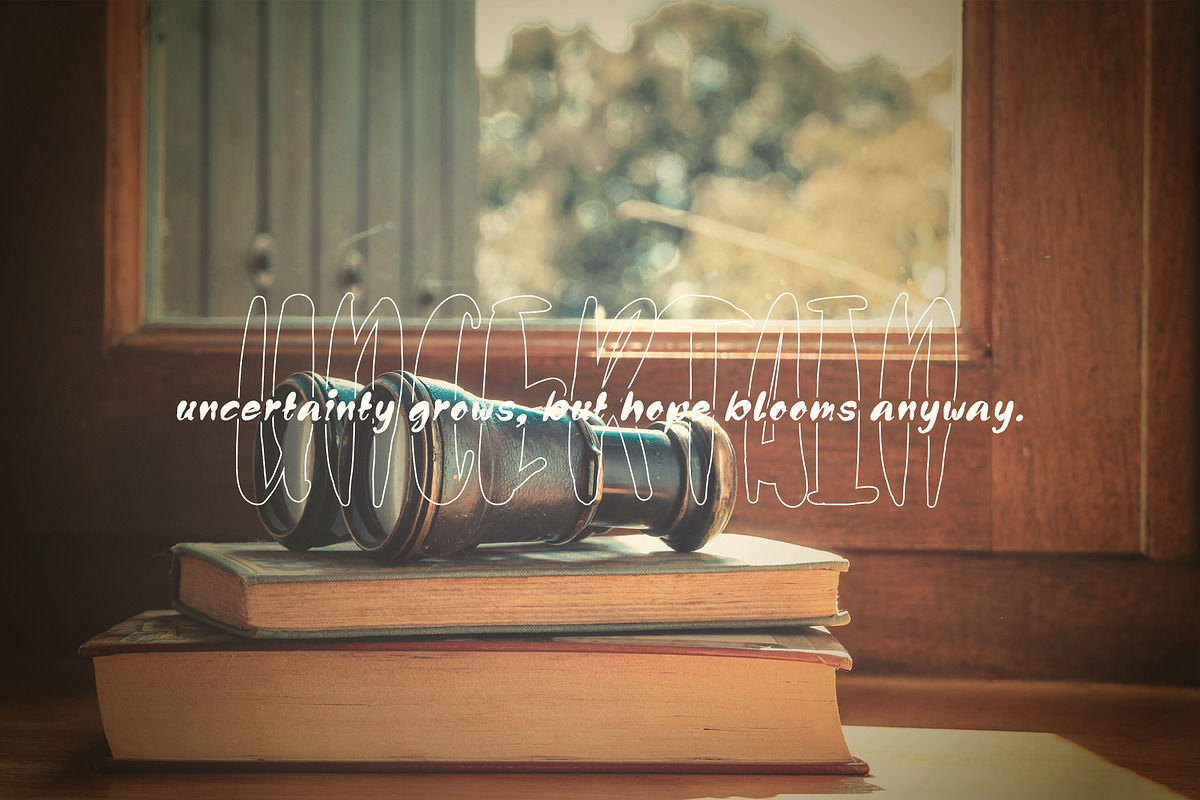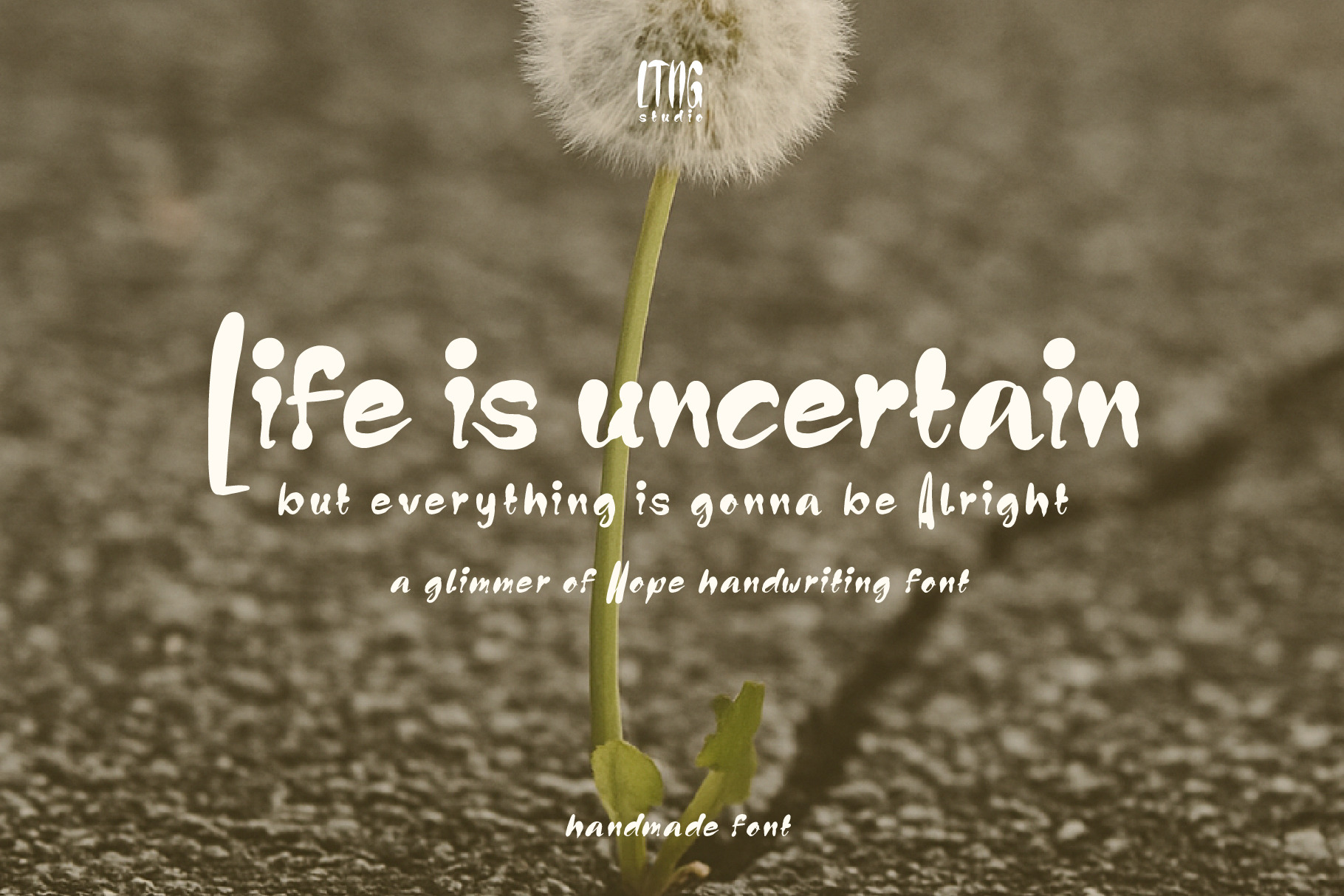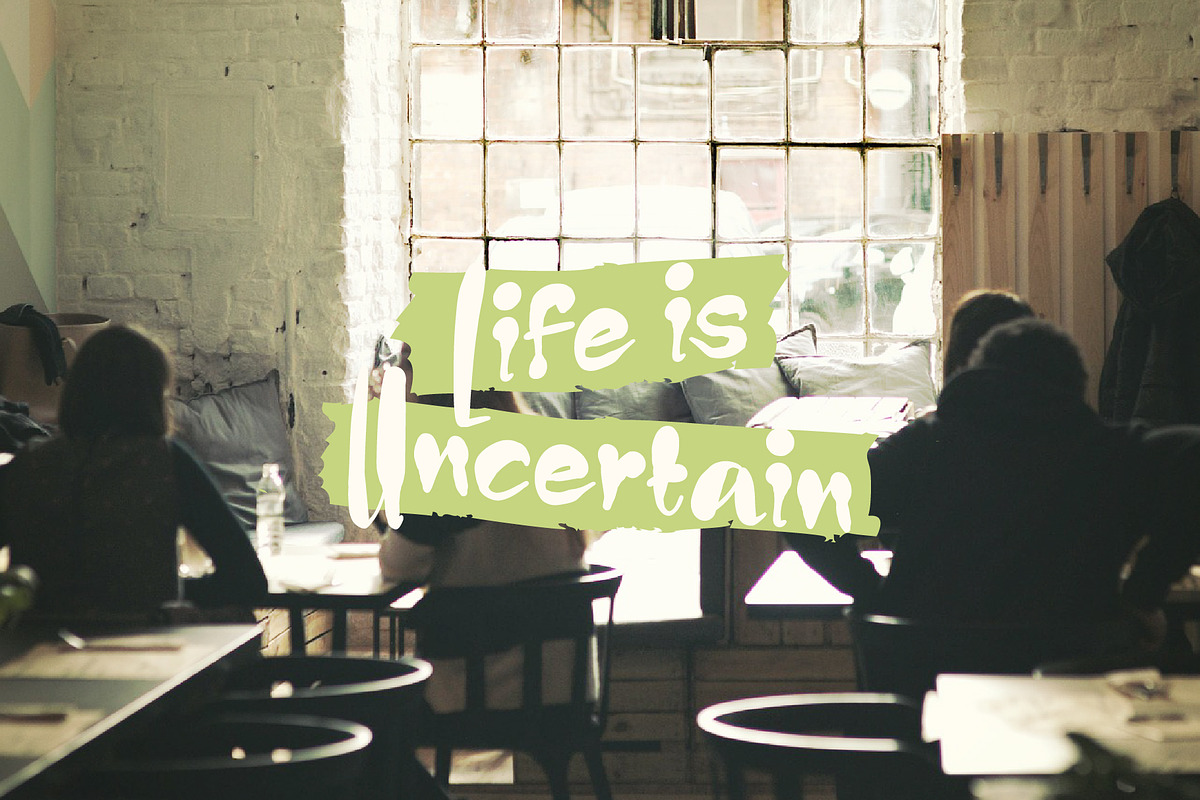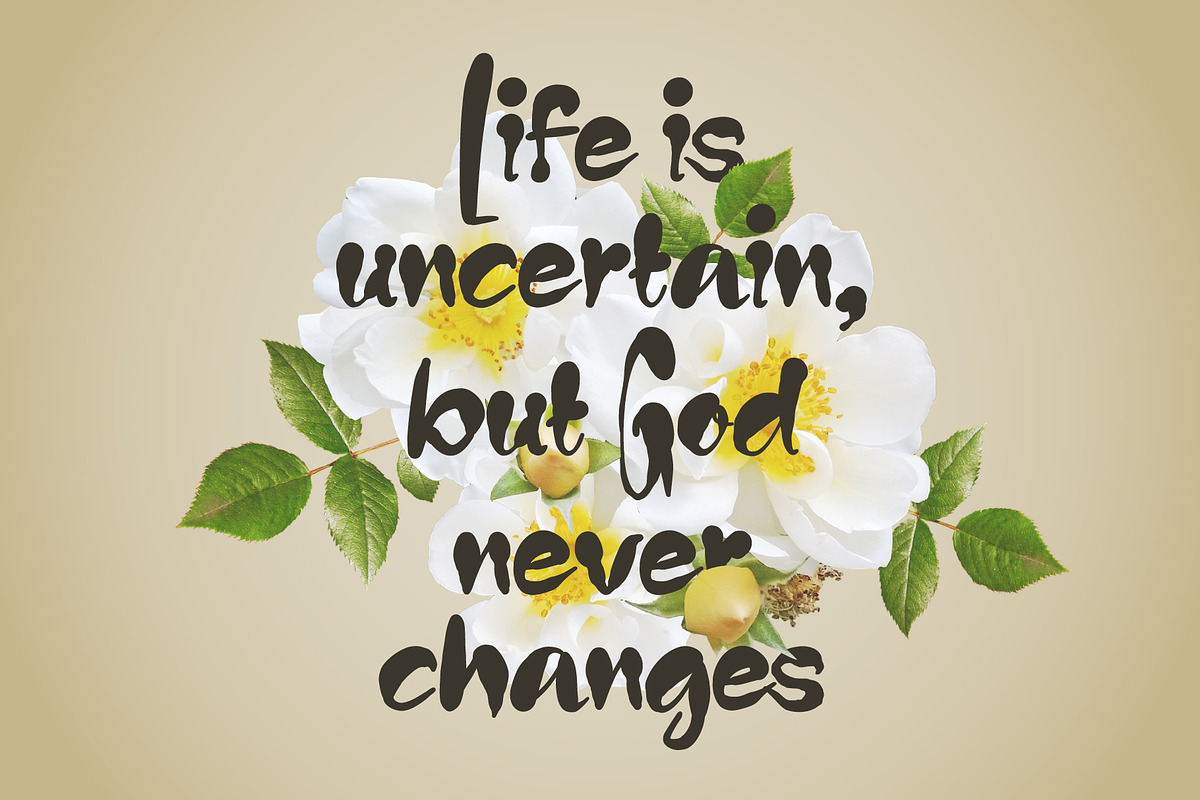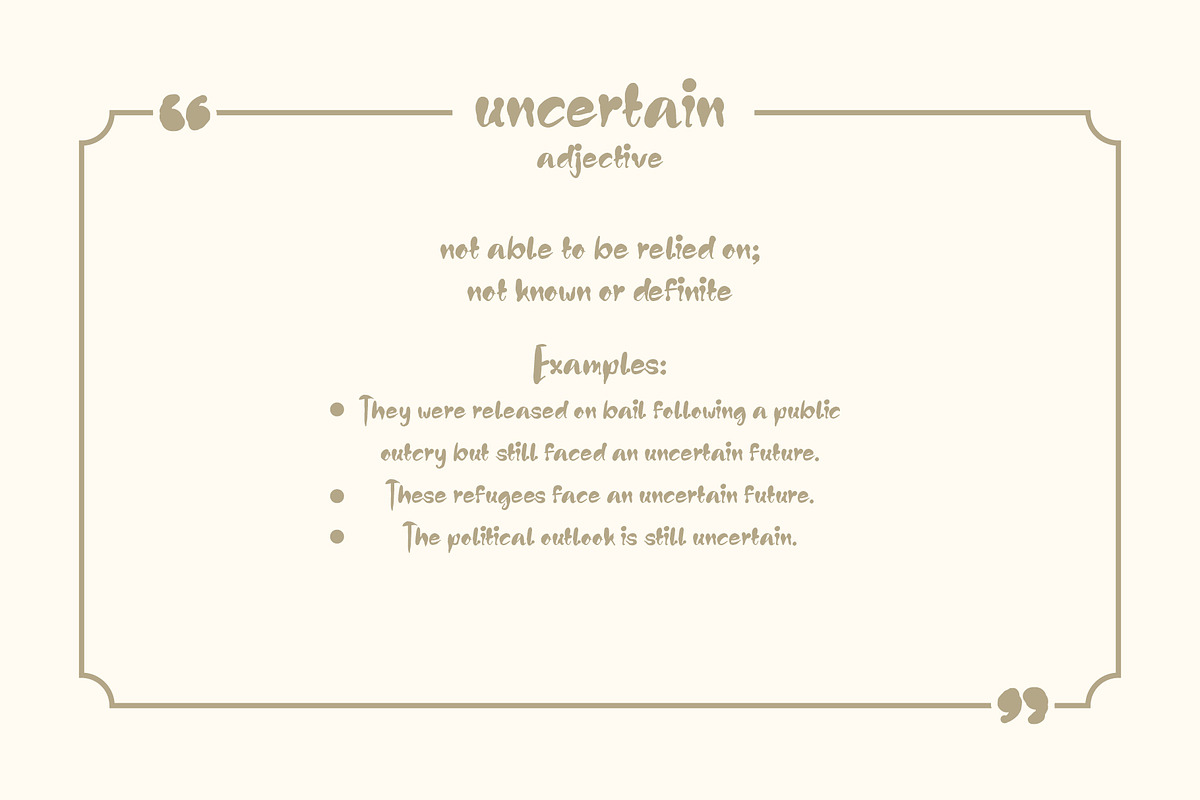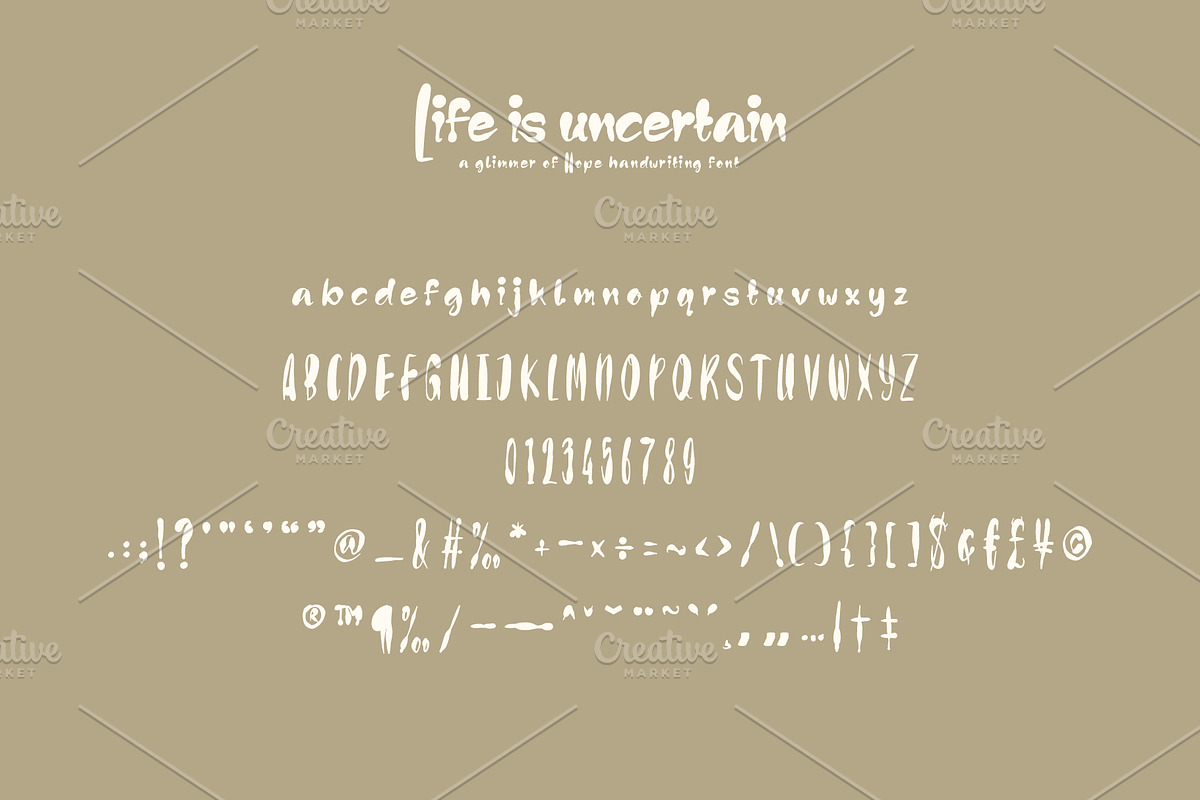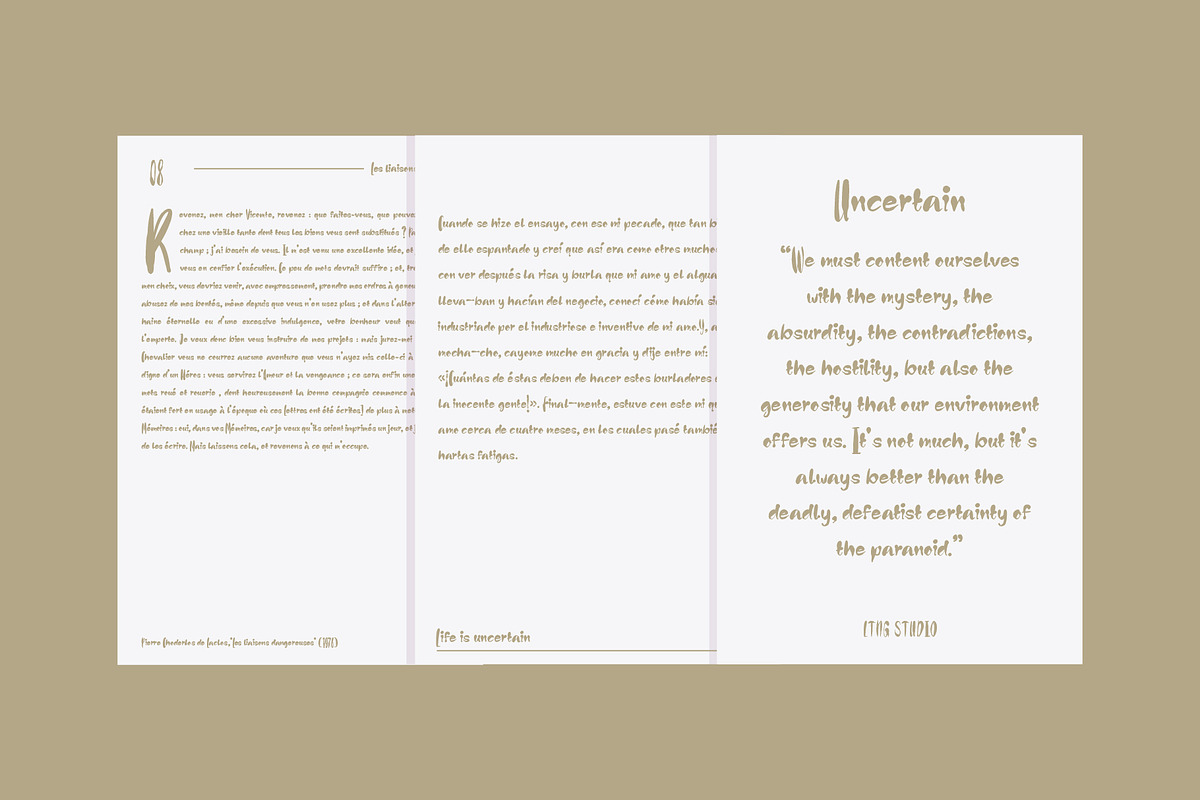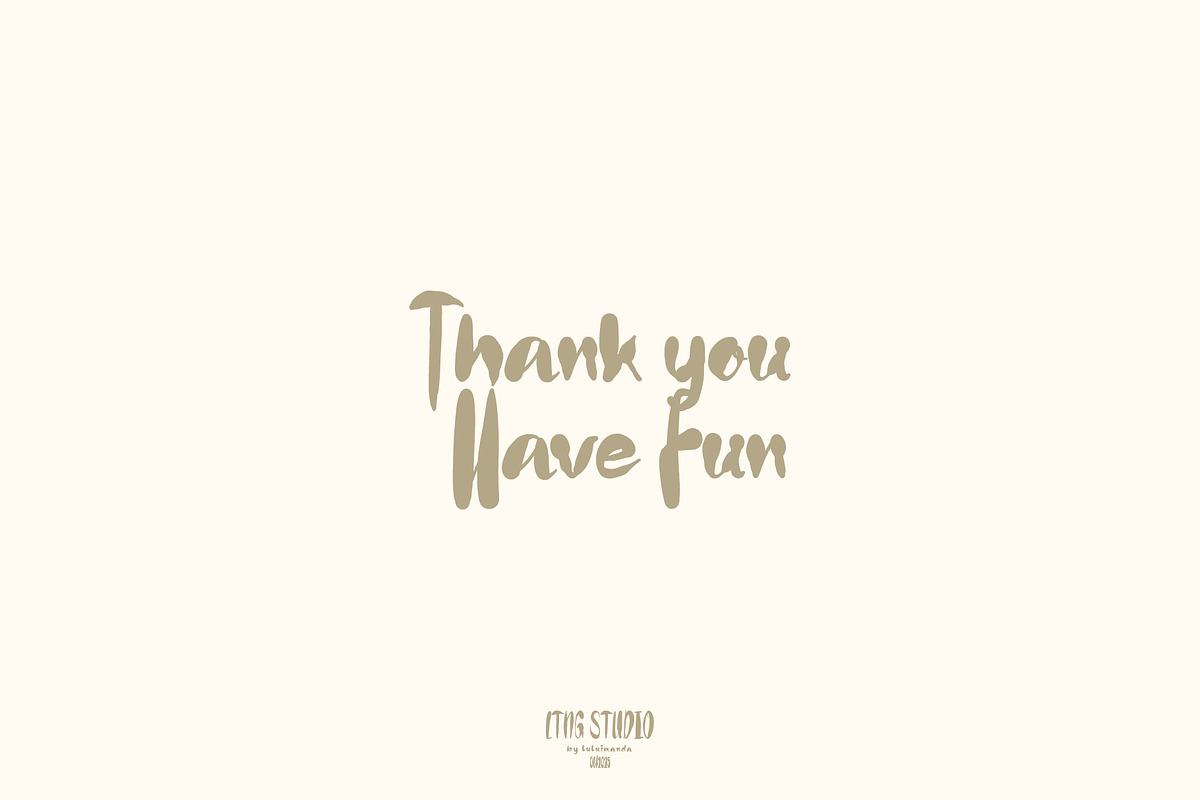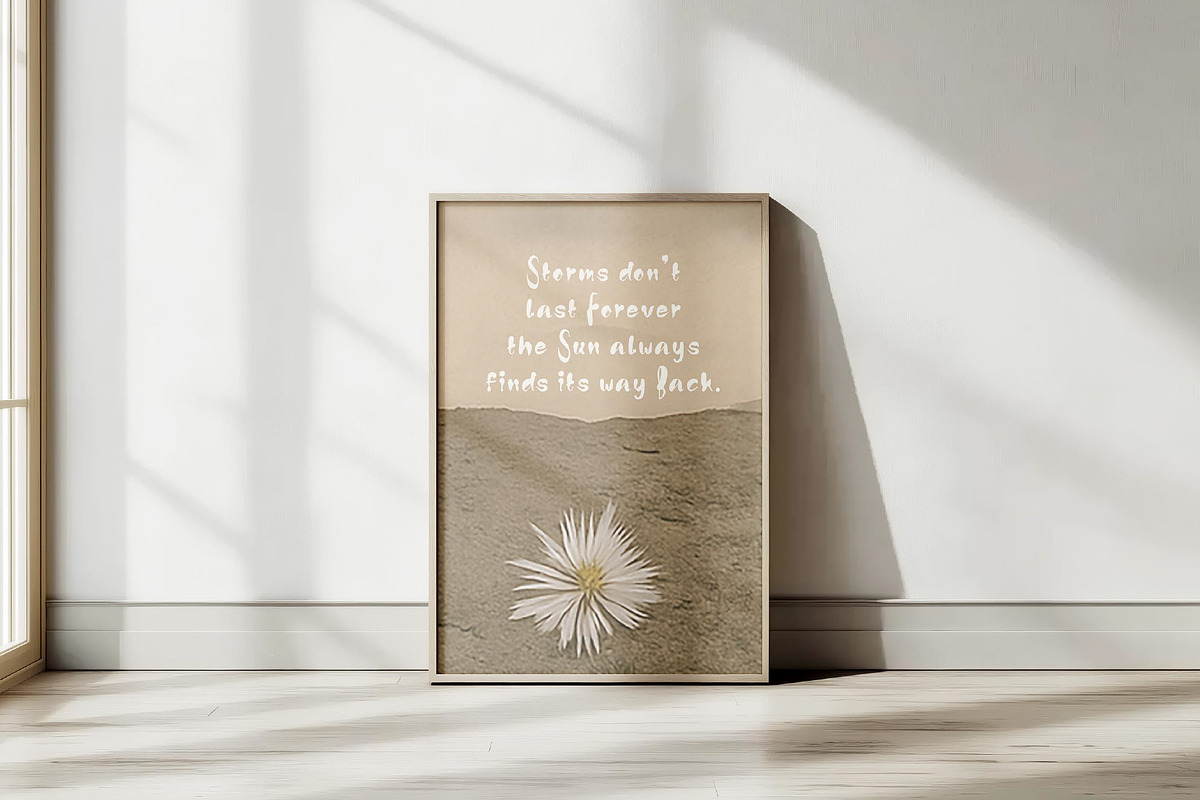
Life is Uncertain Handwriting Font
Life is Uncertain — A Glimmer of Hope in Every Stroke Life is Uncertain is more than just a handwriting font — it’s a quiet companion for storytellers, dreamers, and makers. Inspired by the bittersweet beauty of life’s unpredictability, this font was lovingly hand-crafted to evoke warmth, vulnerability, and resilience. Whether you're creating postcards, heartfelt quotes, branding elements, or cozy book covers, Life is Uncertain wraps your words in softness and strength.
Its organic flow and slightly quirky curves echo a human touch — imperfect, honest, and deeply relatable. With a gentle bounce and uneven rhythm, this font captures the spirit of handwritten notes that say, "even in chaos, there’s still hope."
Perfect for: Inspirational quotes and social media posts Thoughtful packaging and branding Journals, zines, and greeting cards Poster art and expressive typography Pair it with minimal backgrounds, natural textures, or photographic elements to bring out its emotional depth. Let Life is Uncertain speak for your story — because even when life is unpredictable, your design can still feel beautifully grounded.